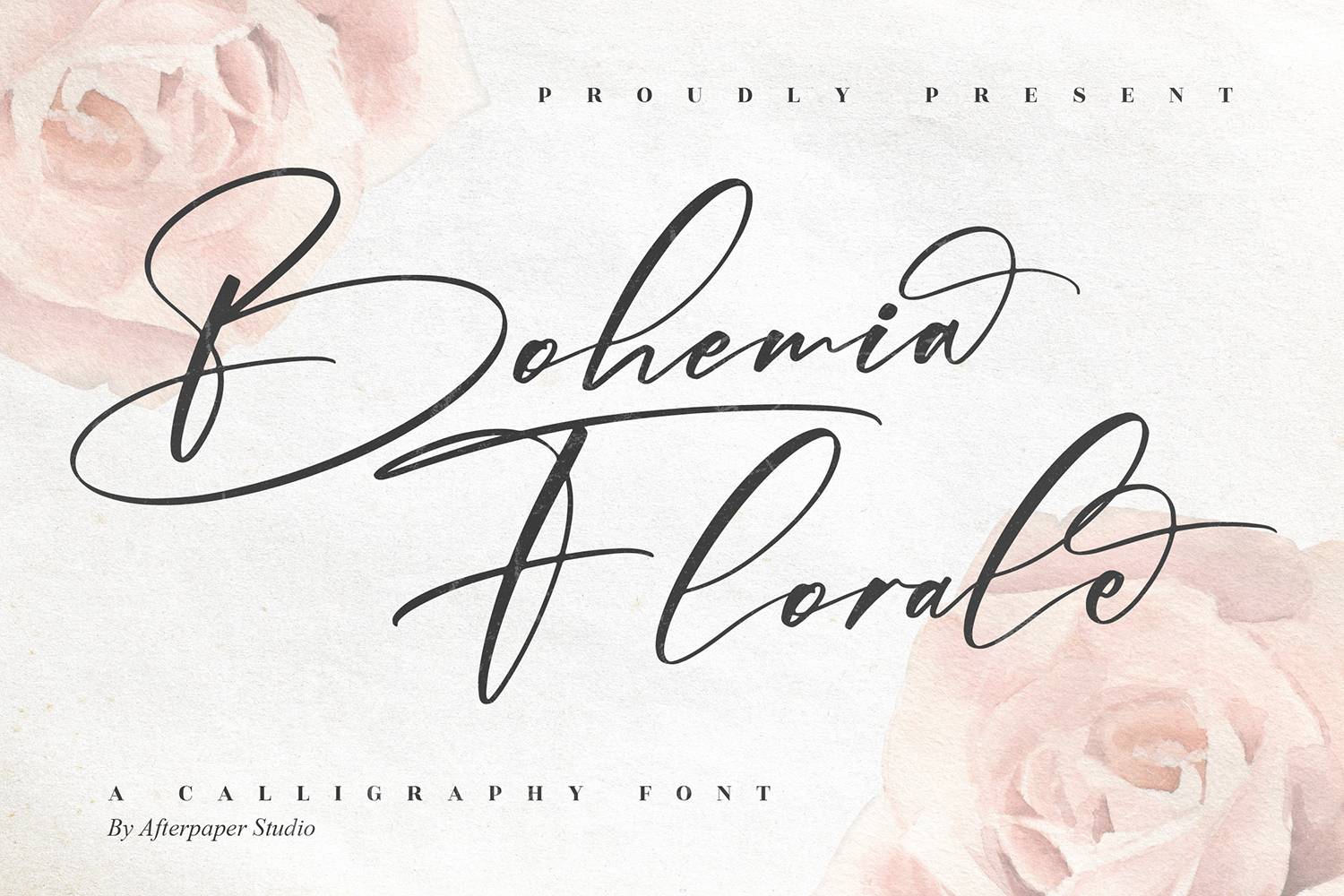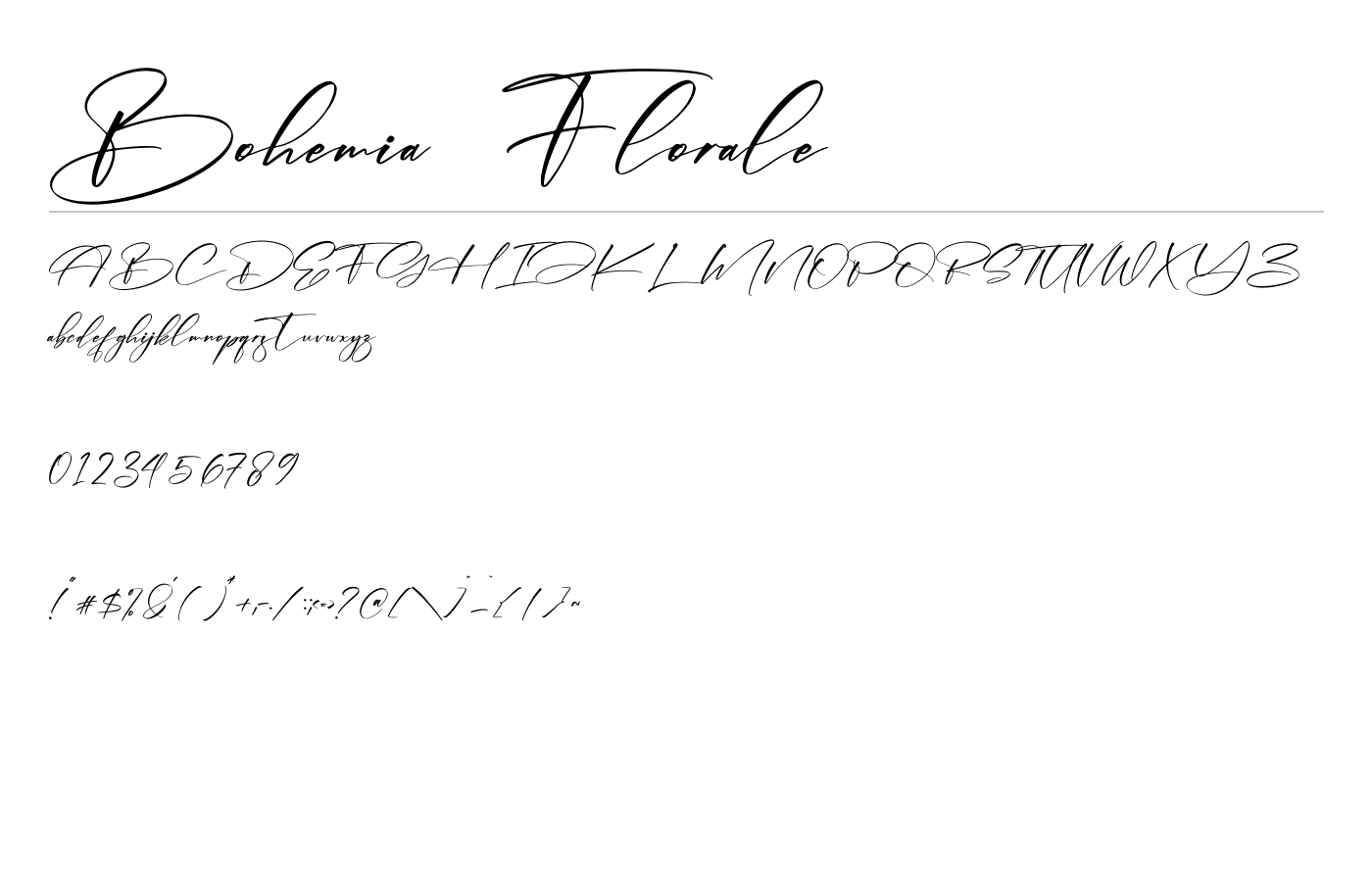
Bohemia Florale is an elegant script font characterized by its delicate, flowing strokes and graceful calligraphic style. With a light weight and airy letterforms, it exudes a romantic and sophisticated mood, perfect for wedding invitations, luxury branding, and refined editorial designs. Its finely detailed curves and stylish ligatures make it ideal for creating a personalized, artistic touch in headlines and logos.
Bohemia Florale Font